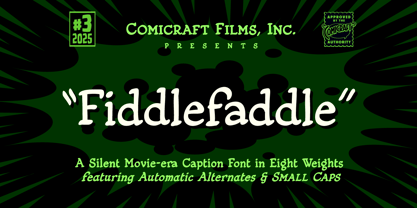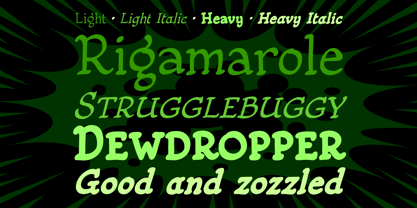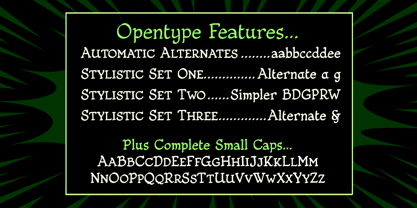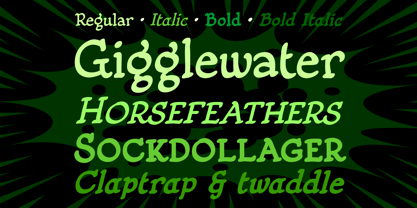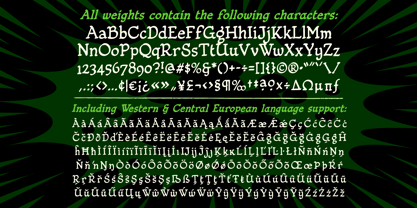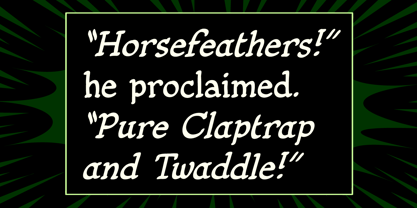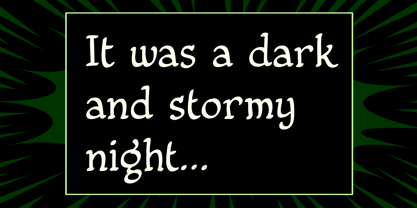
Fiddlefaddle
by Comicraft
The Fiddlefaddle Font Family was designed by John Roshell and published by Comicraft. Fiddlefaddle contains 8 styles and family package options.
Ladies and Gentlemen, let it be known that pollen levels are soaring and the time is right to stay indoors dressed in your glad rags with a long tall glass of gigglewater, open your journal and take note of all the rigmarole, poppycock, fiddle faddle and bunkum a waggish rogue like you has had the guff to get up to.
“Horsefeathers!” Your doubters will proclaim! “Claptrap and Twaddle!” They will say, inferring there was no strugglebuggy on your chaise longue and no rugcutting balderdash either. “Are you zozzled?!”
They might think you a dewdropper, but your journal knows this is hotsy totsy, posilutely a sockdollager story filled with jocosity and wit. Just look at the elegant script! How could this be piffle? It's sure to be a major motion picture!